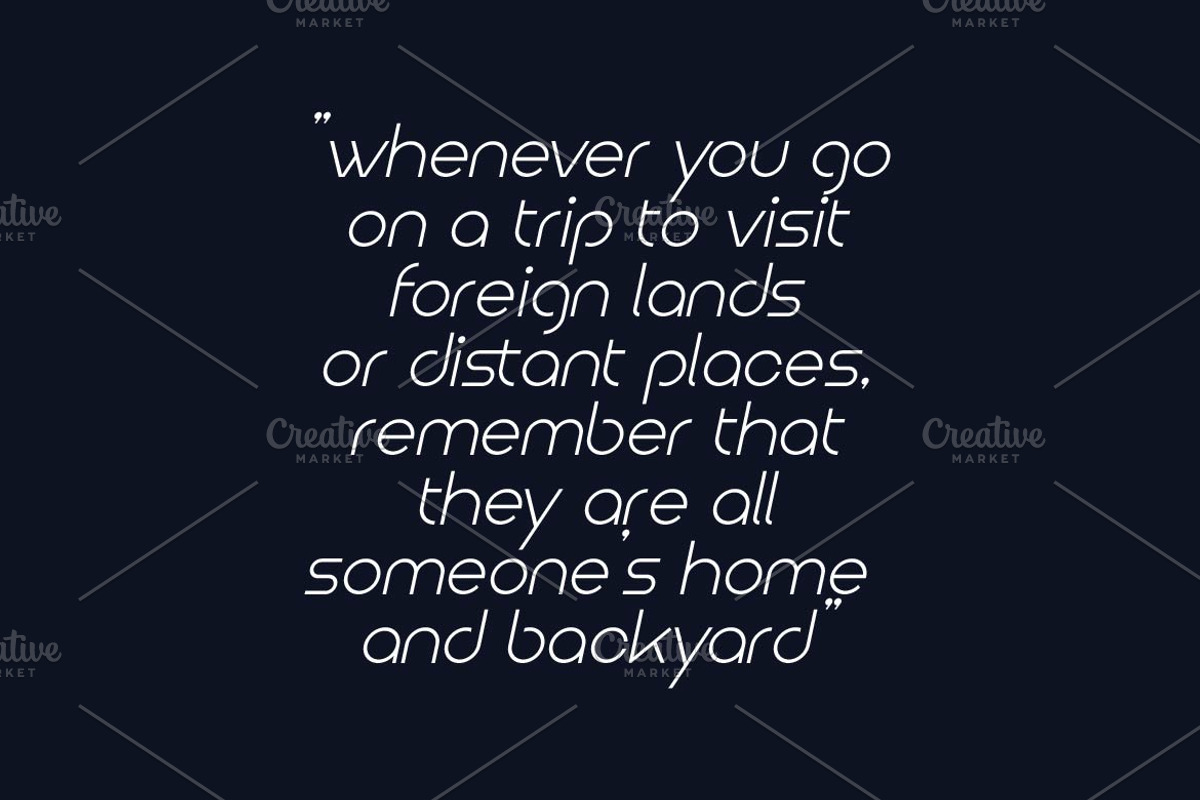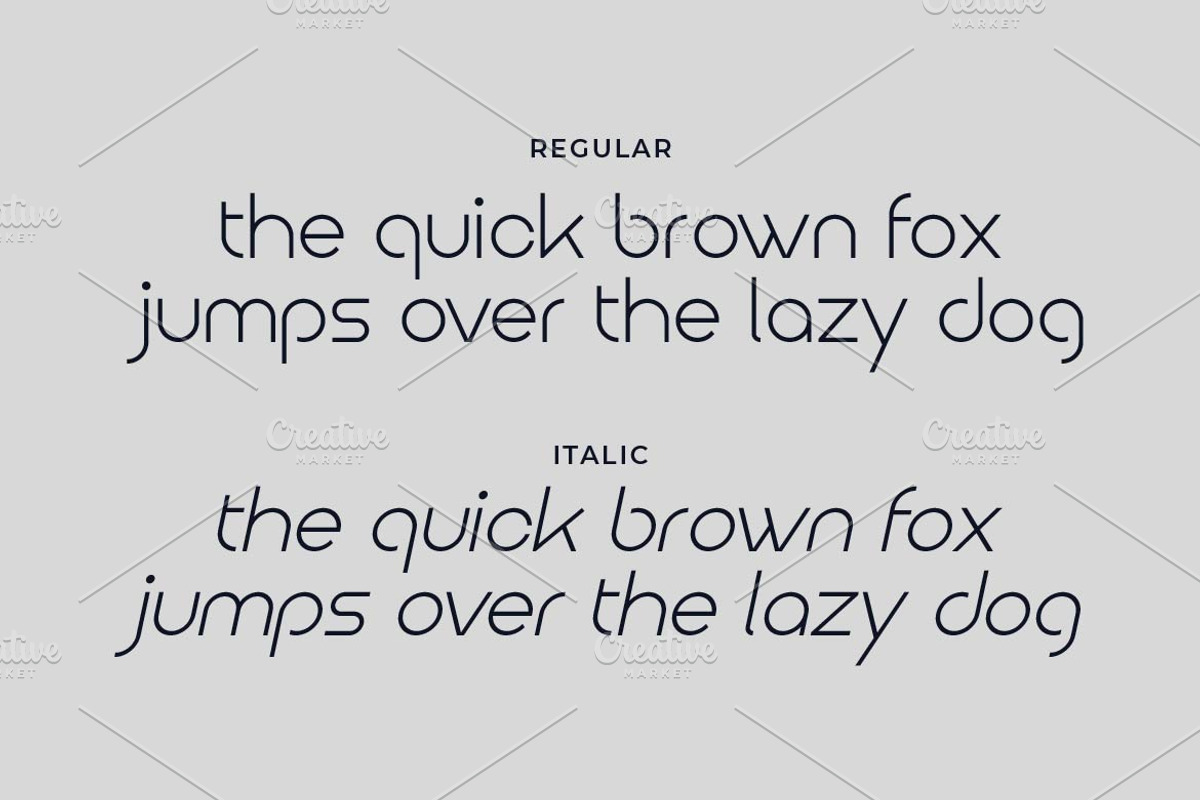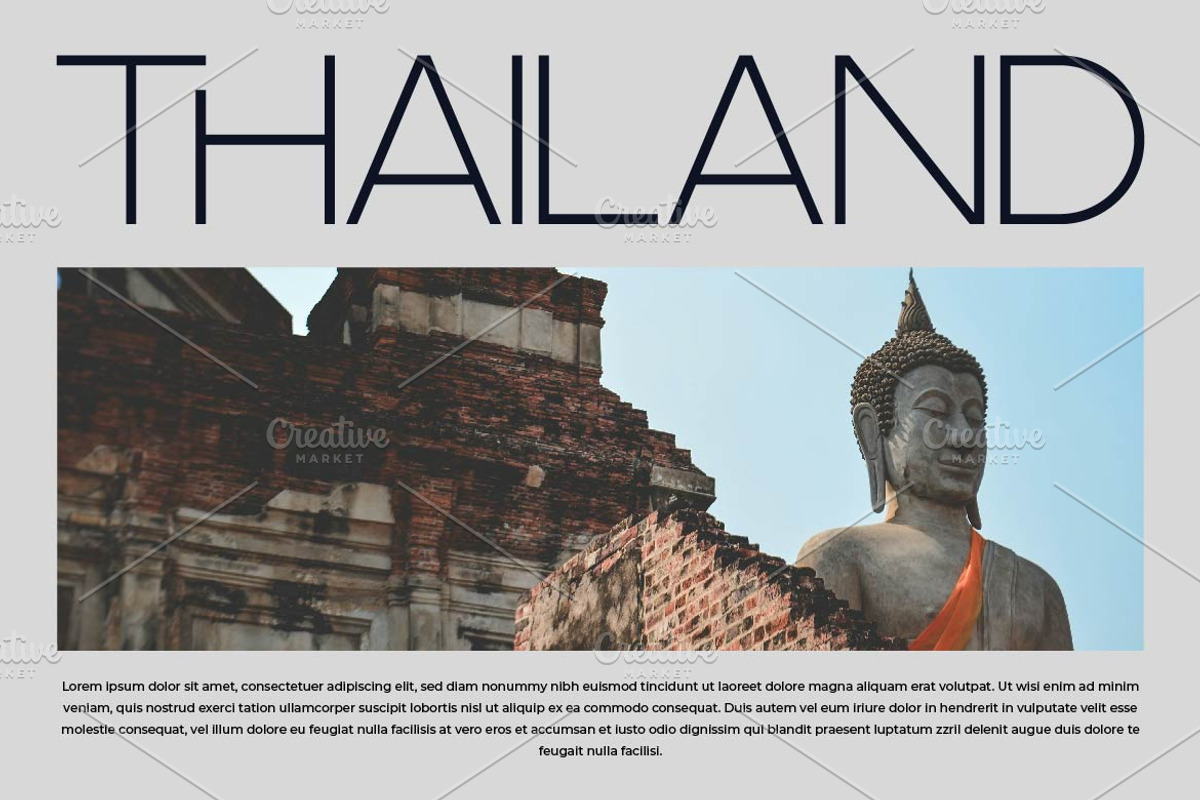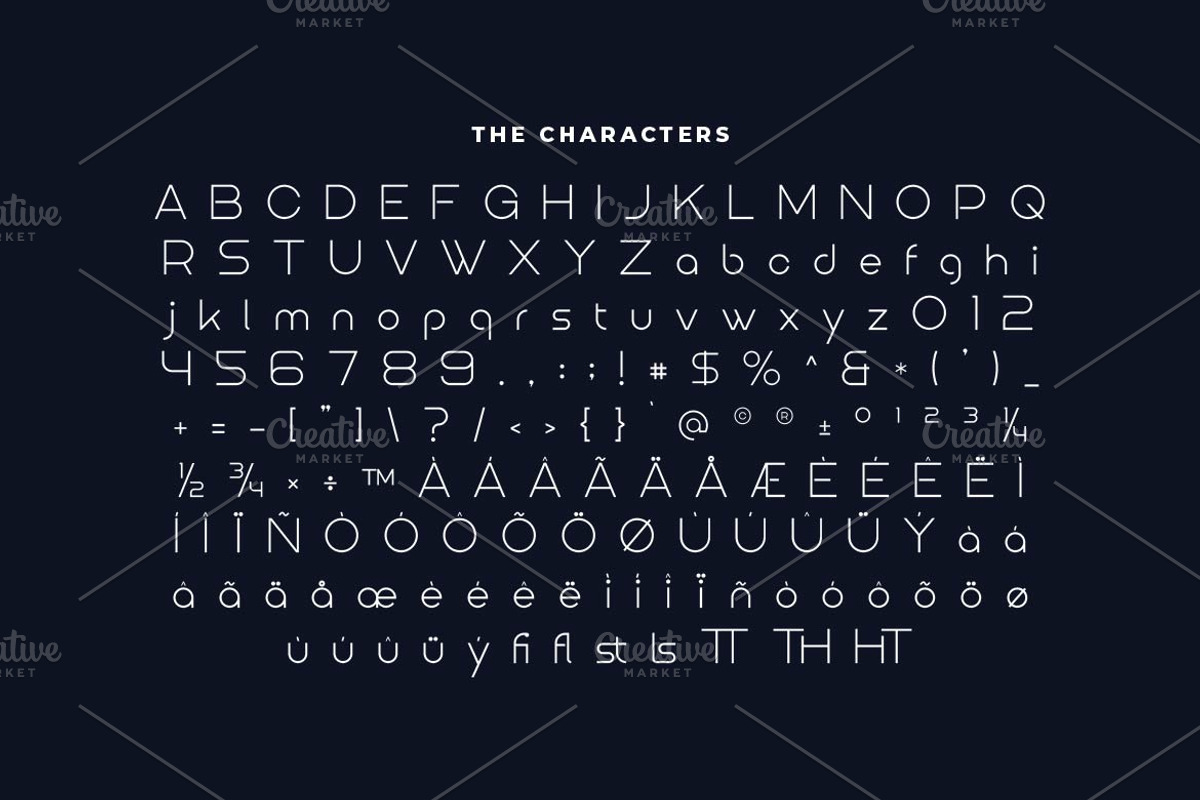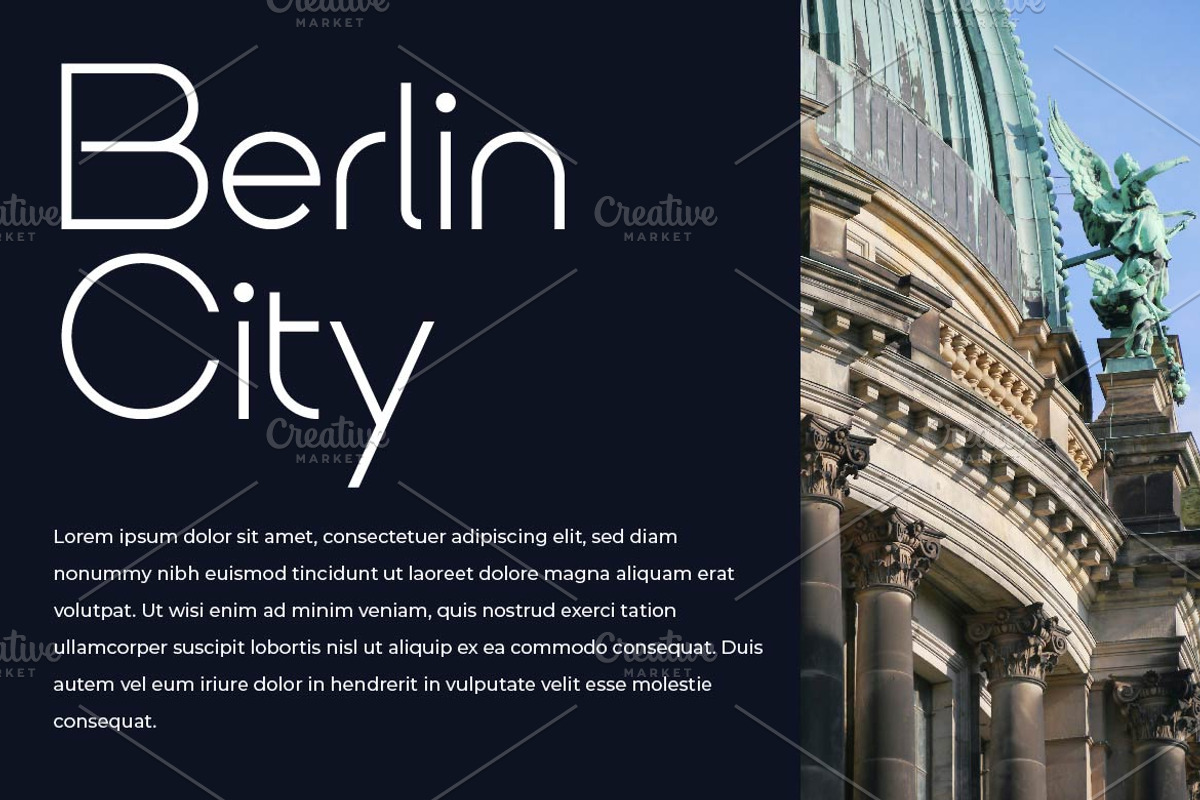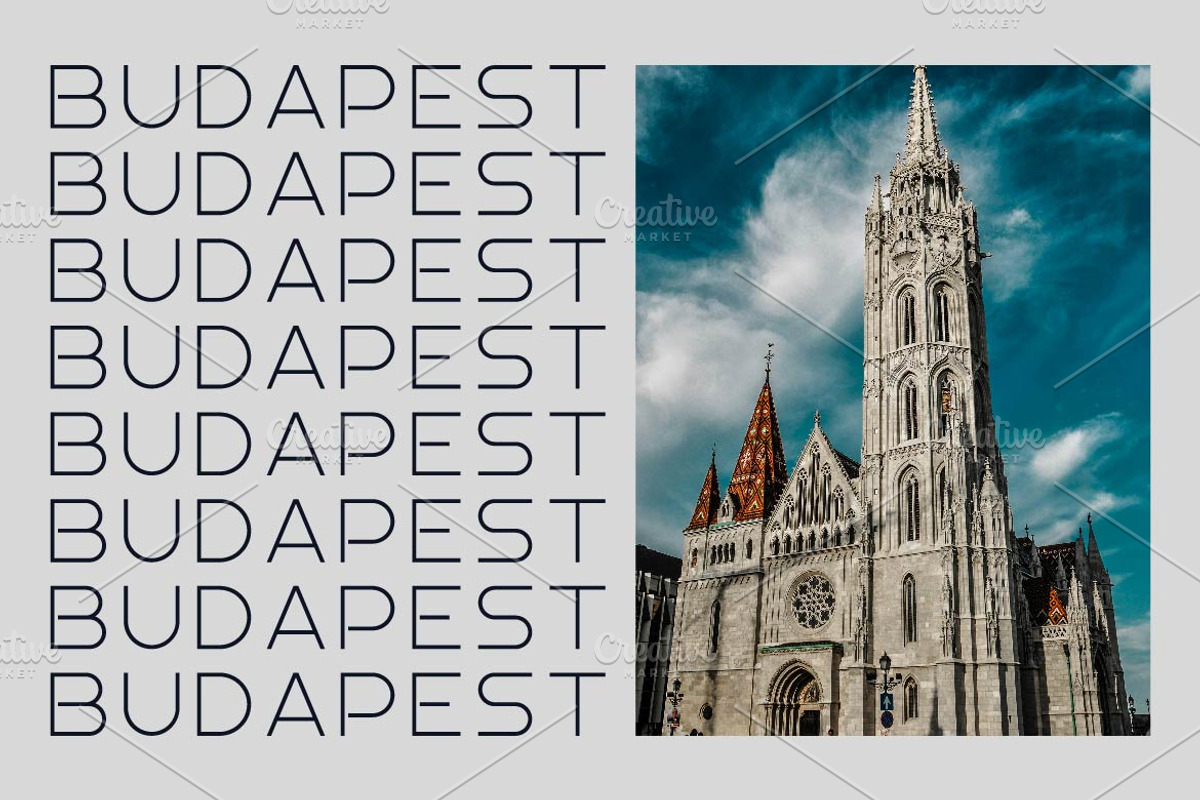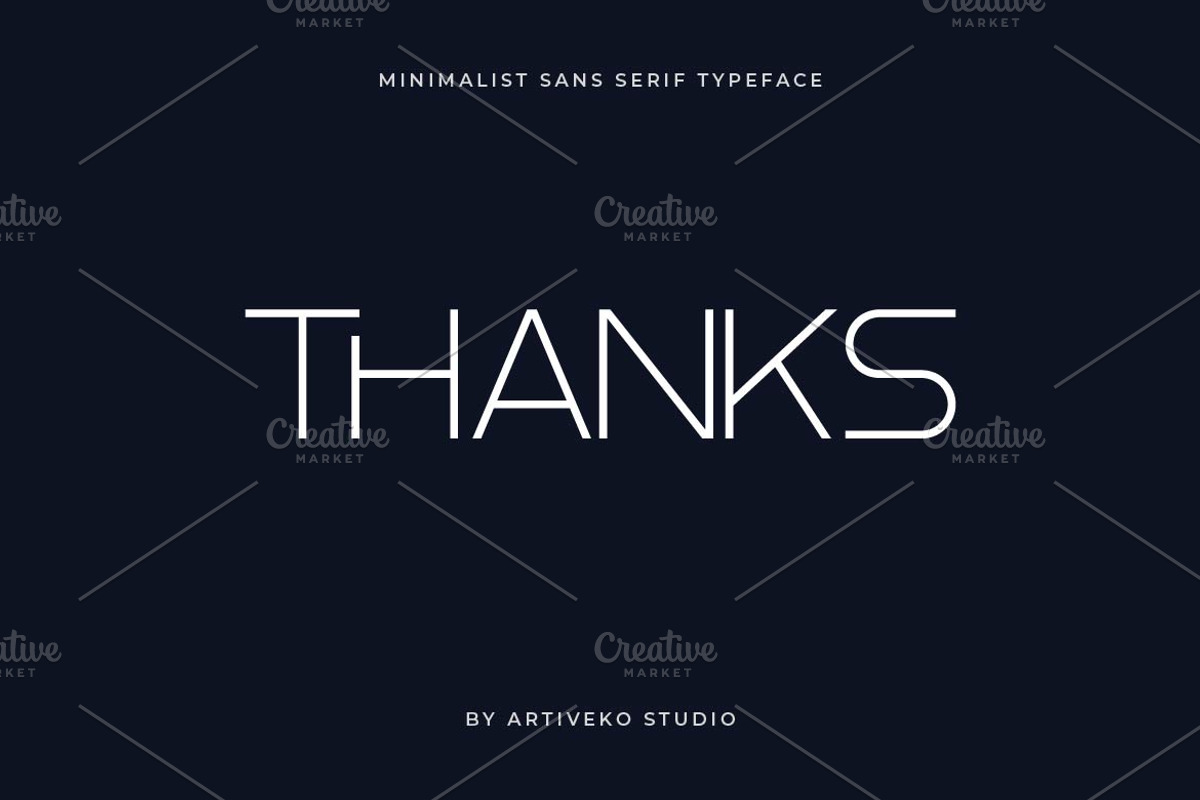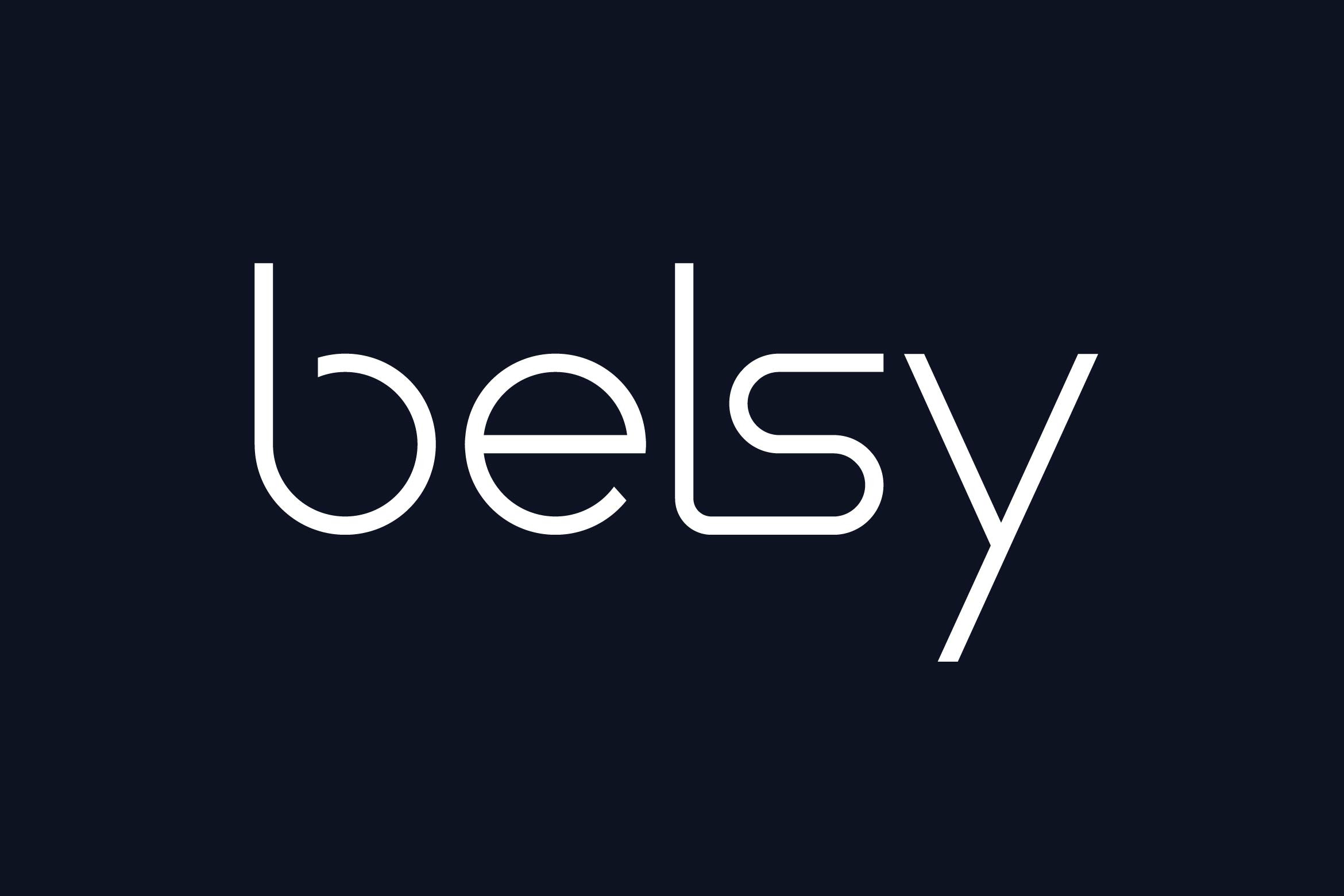
Belsy Minimalist Sans Font
Belsy is a minimalist sans serif font designed with clean lines and modern simplicity. Its sleek and balanced letterforms make it perfect for branding, editorial design, packaging, and web interfaces. With multilingual support, ligatures, and alternates, Belsy offers a refined yet versatile aesthetic, making it an ideal choice for projects that prioritize elegance, clarity, and contemporary minimalism.